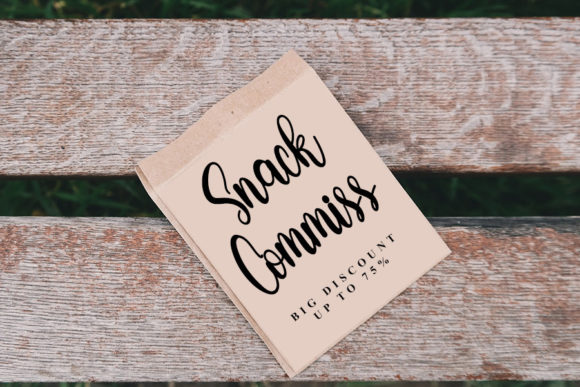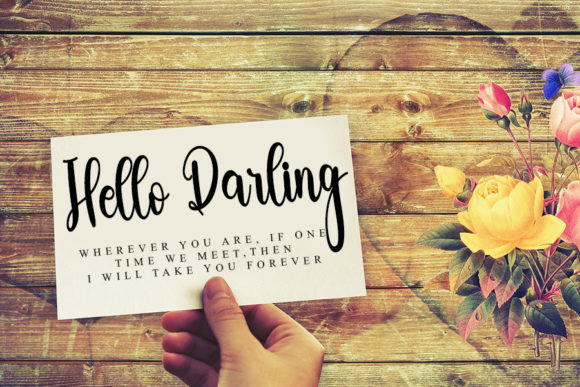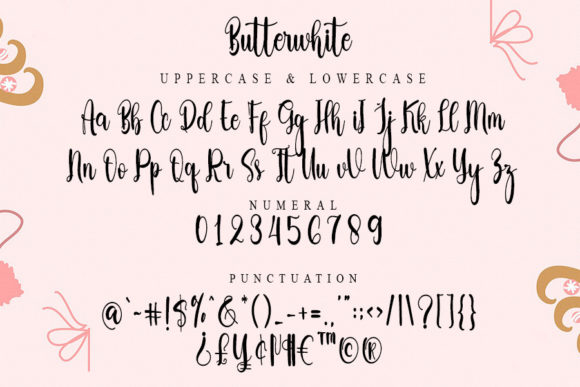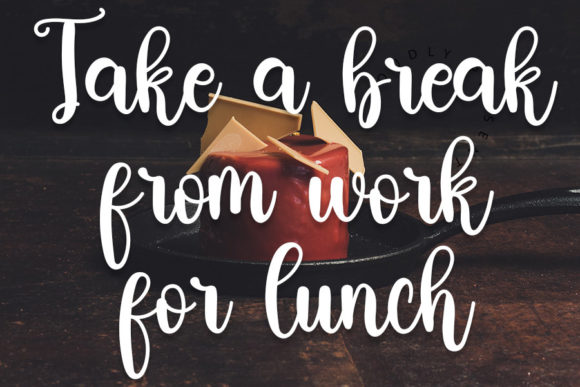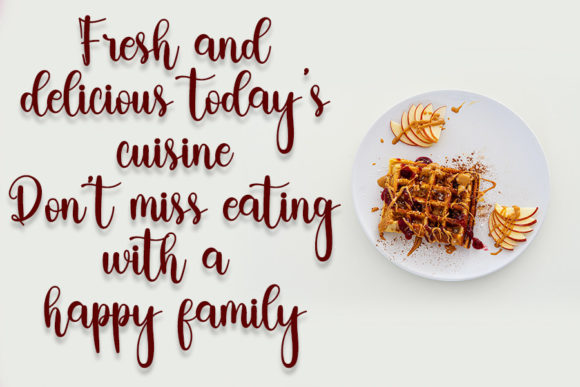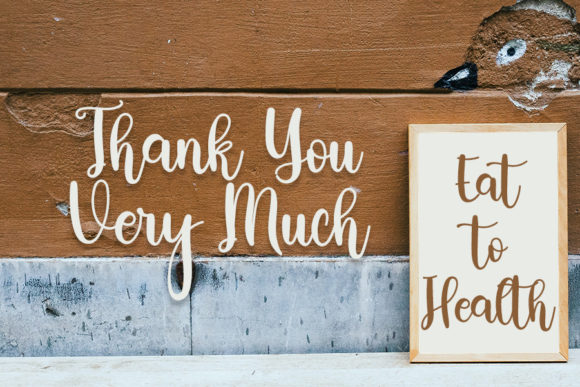
The Perfect Brushstroke: Unlocking the Magic of the Butterwhite Font
Do you remember that moment when you first discovered the perfect font for your project? The one that made your design come alive and told the story you wanted to convey? For many of us, it’s a moment that sparks joy and inspires creativity. As designers, we’re always on the lookout for that special something that elevates our work to the next level.
That’s where the Butterwhite Font comes in – a stunning handwritten font that exudes a contemporary atmosphere and timeless elegance. With its impeccable form and balanced, varied style, this font is designed to add beauty and sophistication to any project. Whether you’re a seasoned designer or just starting out, the Butterwhite Font is an invaluable addition to your toolkit, allowing you to bring your unique vision to life.
- Unique Characteristics: The Butterwhite font features a unique blend of modern and vintage elements, with clean lines, subtle curves, and a touch of elegance.
Designer Review: Butterwhite Font
As a designer, I was excited to dive into the Butterwhite font. Overall, I have mixed feelings about this font.
- The elegant and classic feel of Butterwhite is perfect for traditional or vintage-inspired designs.
- The font’s curves and rounded edges give it a soft, approachable look that works well for body text.
- The font comes in a variety of weights and styles, making it versatile for different design applications.
- The font can feel a bit dated, lacking the modern feel of more contemporary fonts.
- The light weights of the font can appear too light or even disappear in certain contexts.
- The font may not be the best choice for digital interfaces or displays where legibility is a top priority.
While Butterwhite has its strengths, its limitations hold it back from being a go-to font for modern designs. It’s a solid choice for traditional or vintage-inspired projects, but for more contemporary work, I’d recommend exploring other options.
Tips for Getting the Most Out of Butterwhite Font
Here are some tips for getting the most out of the Butterwhite font:
- Use it for titles and headings to add a touch of elegance.
- Pair it with other fonts for a unique and interesting look.
The Butterwhite font is perfect for:
- Personalized gifts and cards.